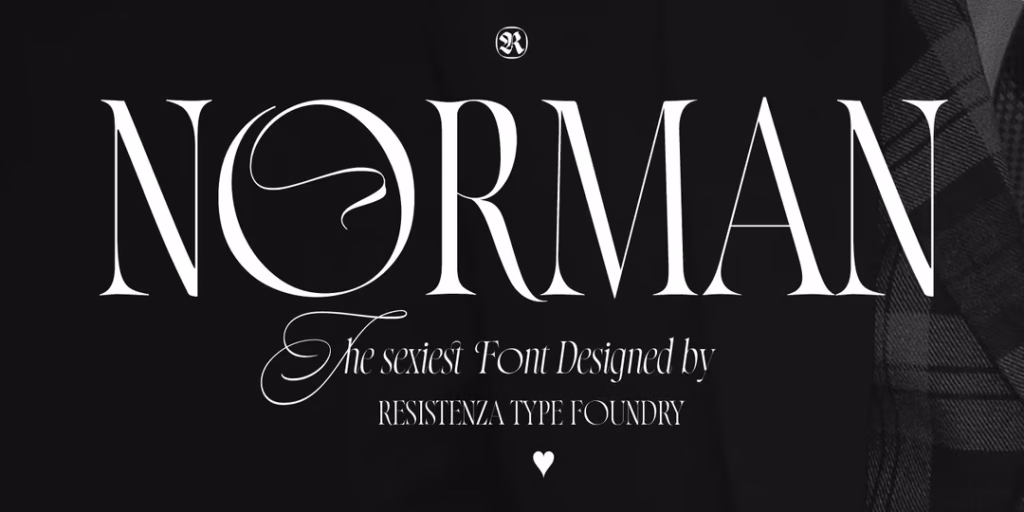
Norman Norman is an amazing highly condensed and high contras serif designed by Giuseppe Salerno together with Paco González for Resistenz foundry.
Designer: Giuseppe Salerno, Paco González
Foundry: Resistenza
Glyphs: Basic Latin, Diacritics, Currency, Central Europe, Alternates, Cyrillic, Figures
Styles: Extra Light, Light, Medium, Bold, Black, Compact, Italics